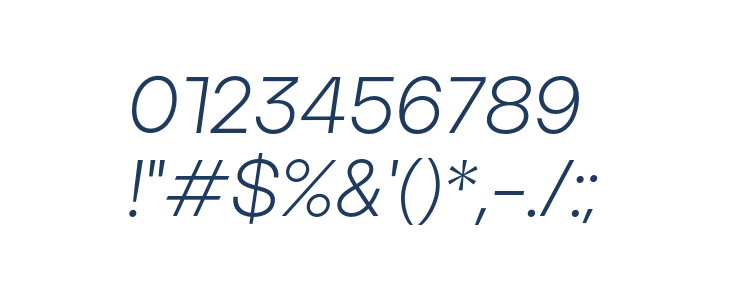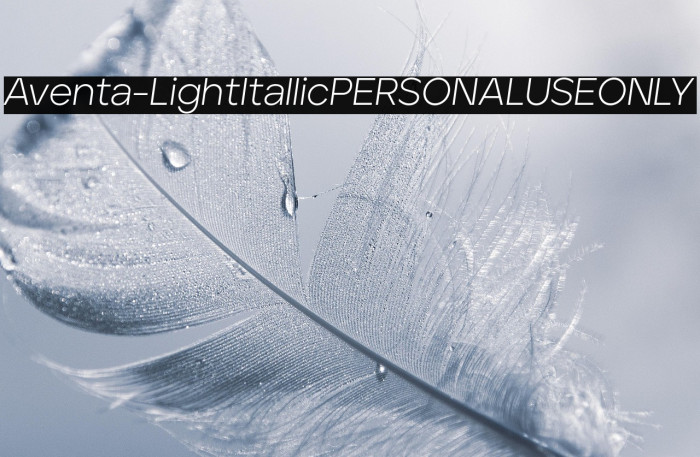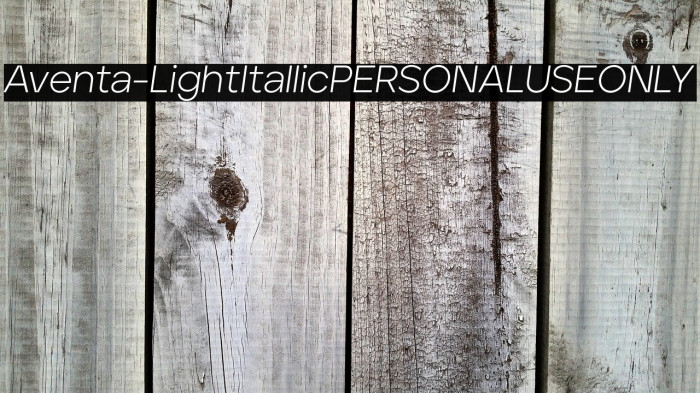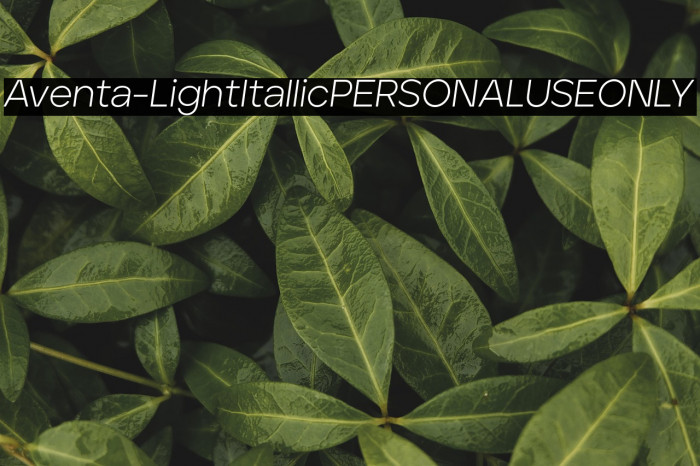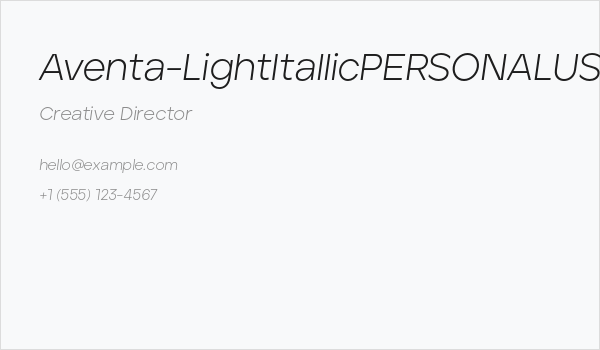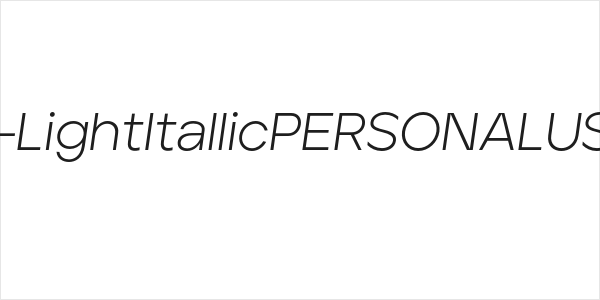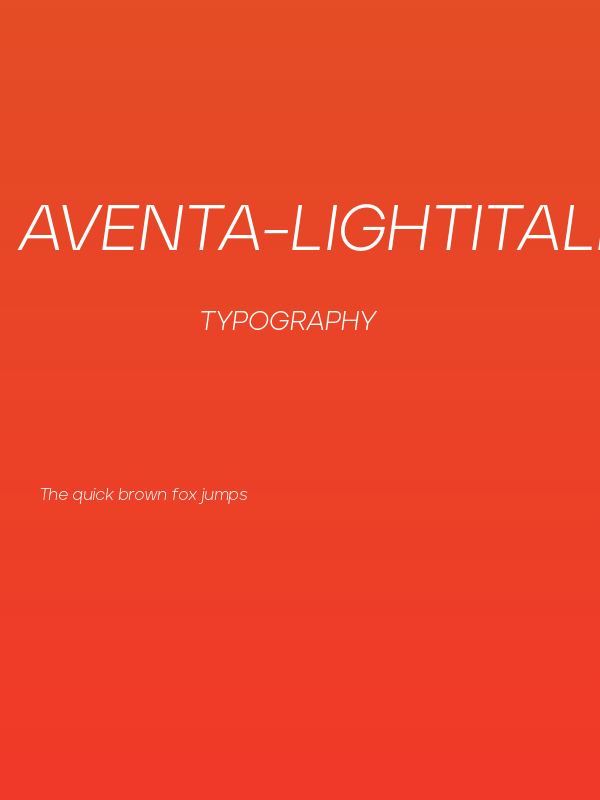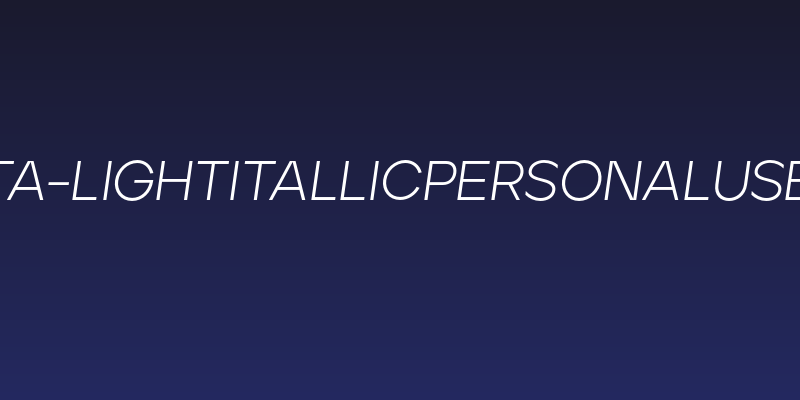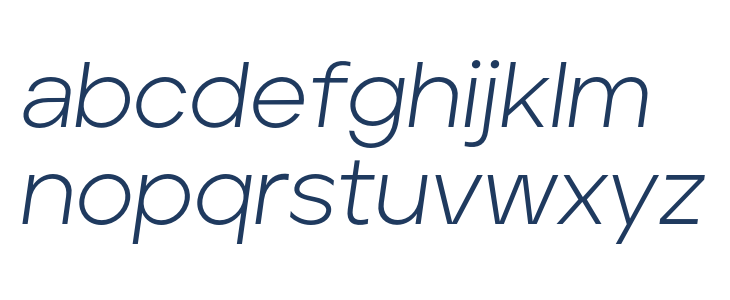
Aventa-LightItallicPERSONALUSEONLY Font
Aventa-LightItallicPERSONALUSEONLY Description
This font features a sleek and modern design with a light weight and italic style. The characters are elegantly slanted, giving a sense of motion and fluidity. The sans-serif design ensures a clean and uncluttered appearance, making it versatile for various applications. The uppercase and lowercase letters maintain consistent proportions, while the numerals are clear and easy to read. Special characters are well-integrated, maintaining the overall aesthetic of the font. The spacing between characters is normal, allowing for readability without sacrificing style.
| Proposed Projects | Ideal for modern branding, editorial design, and digital interfaces. |